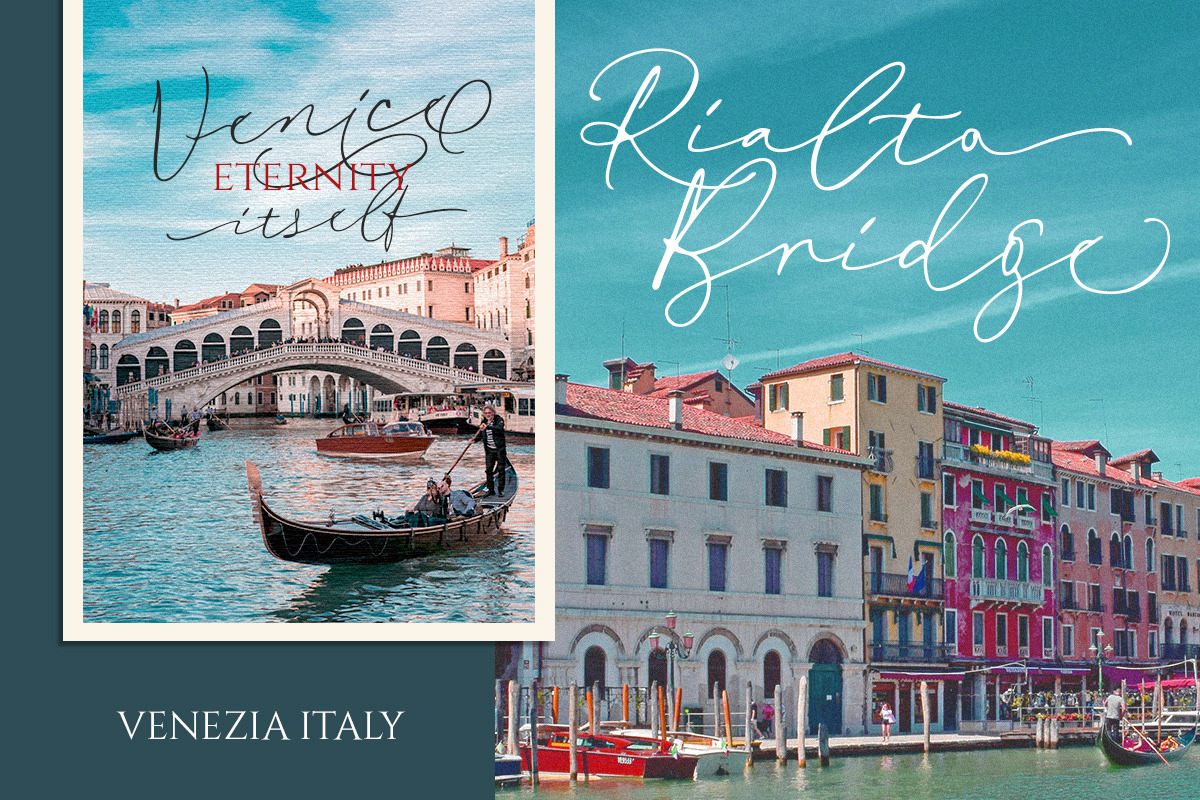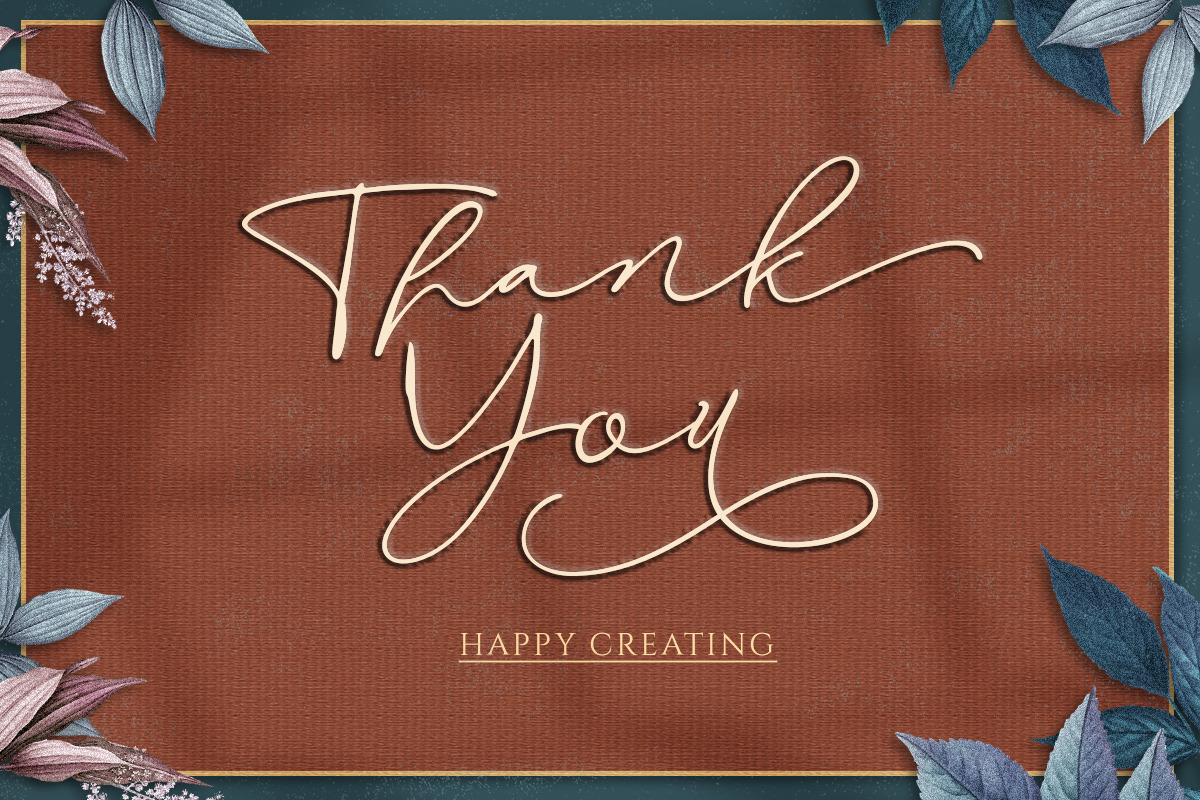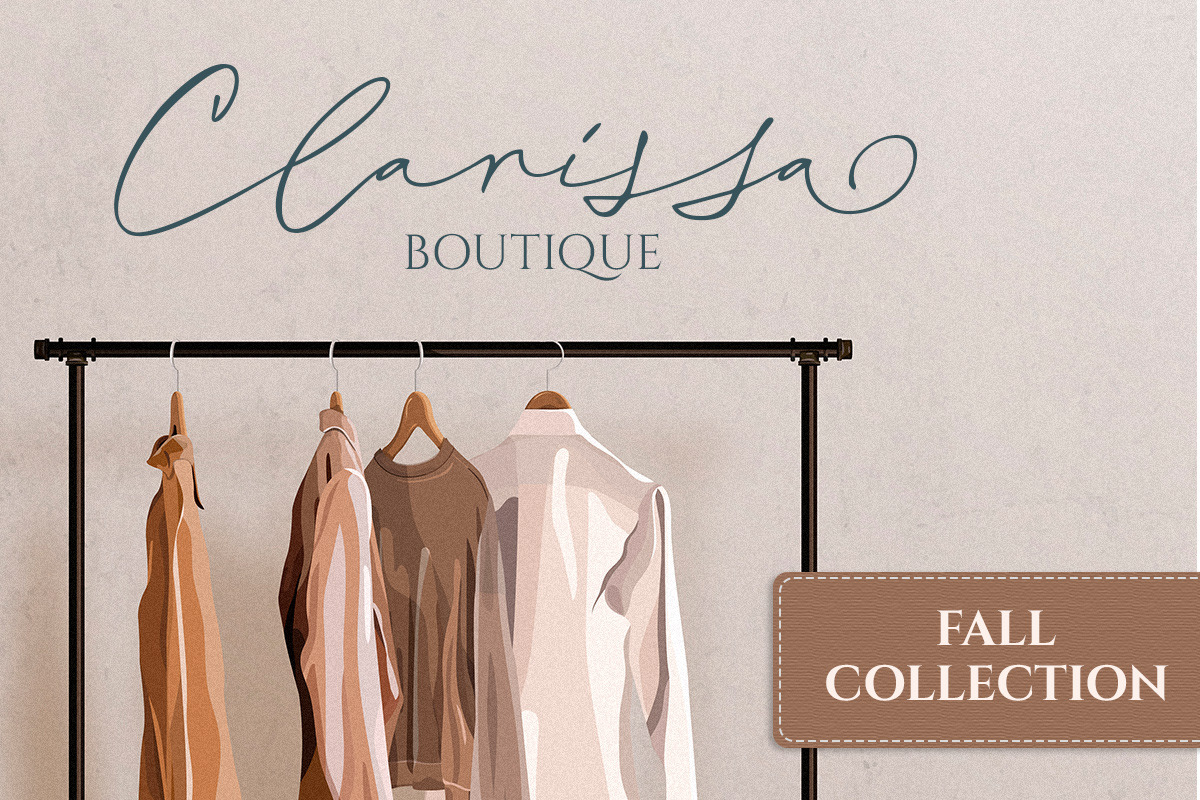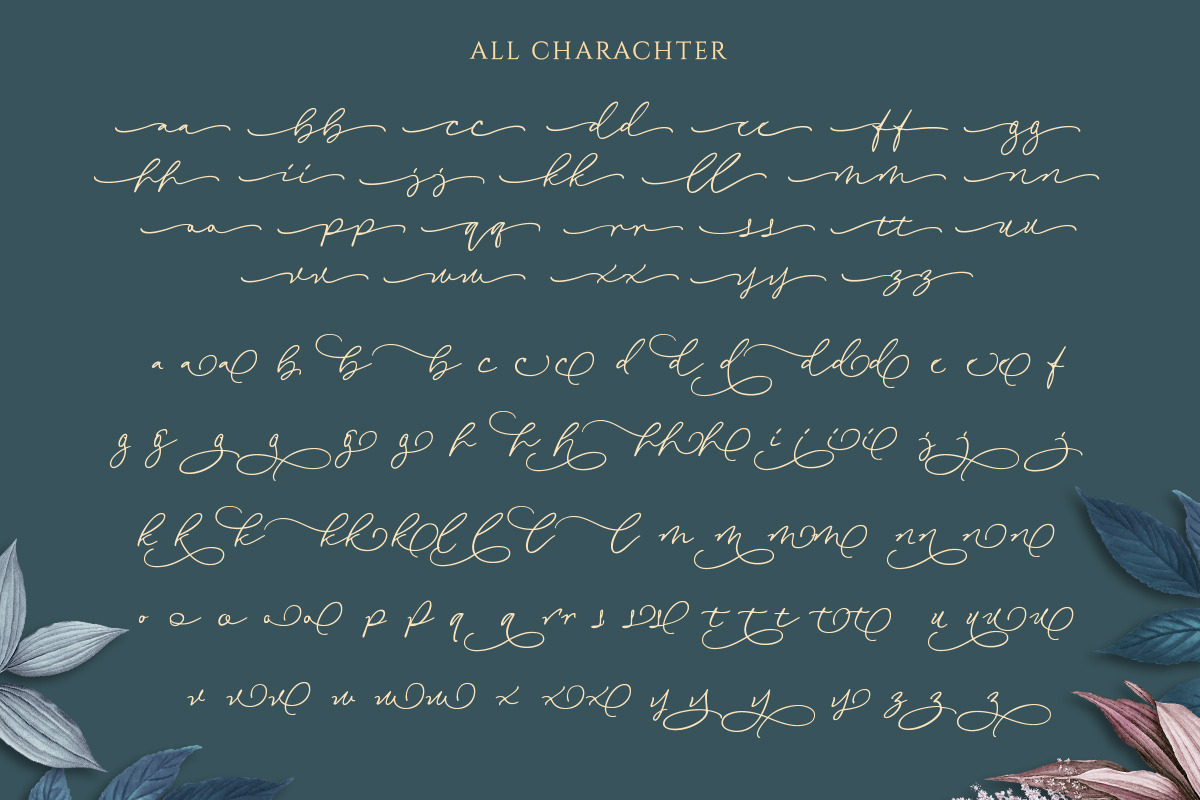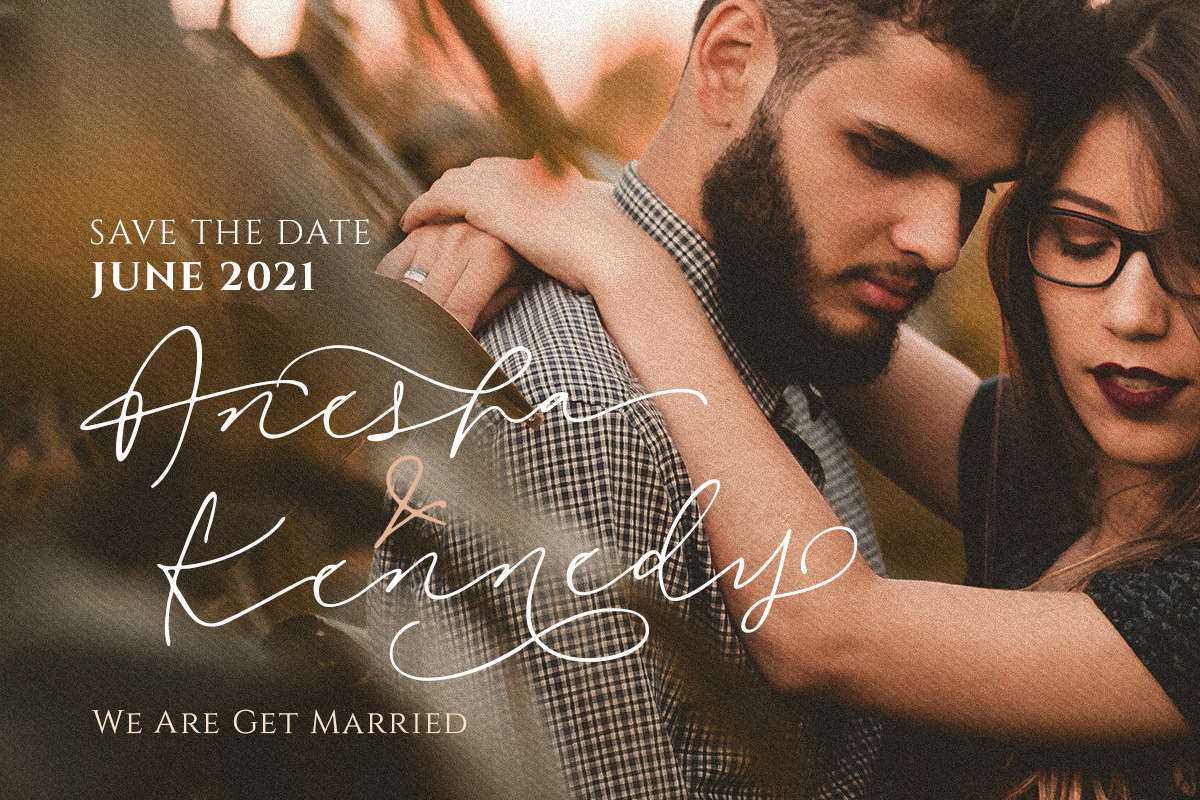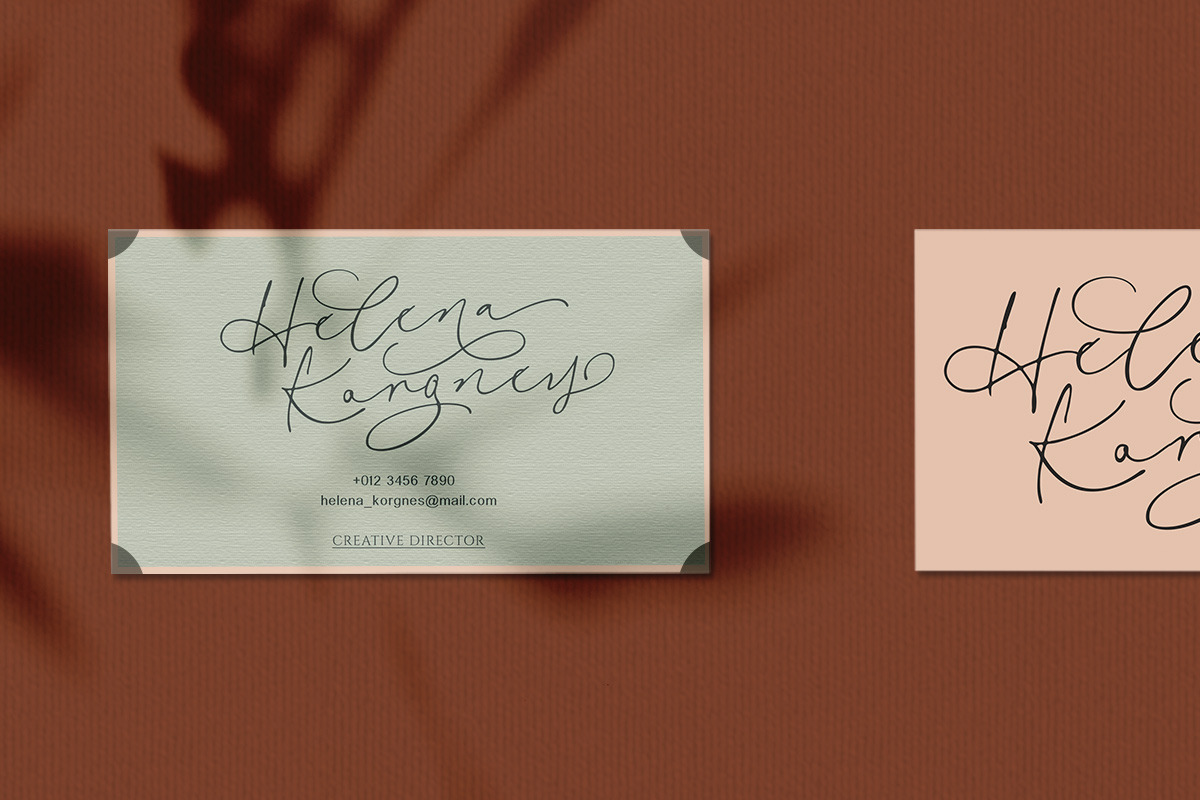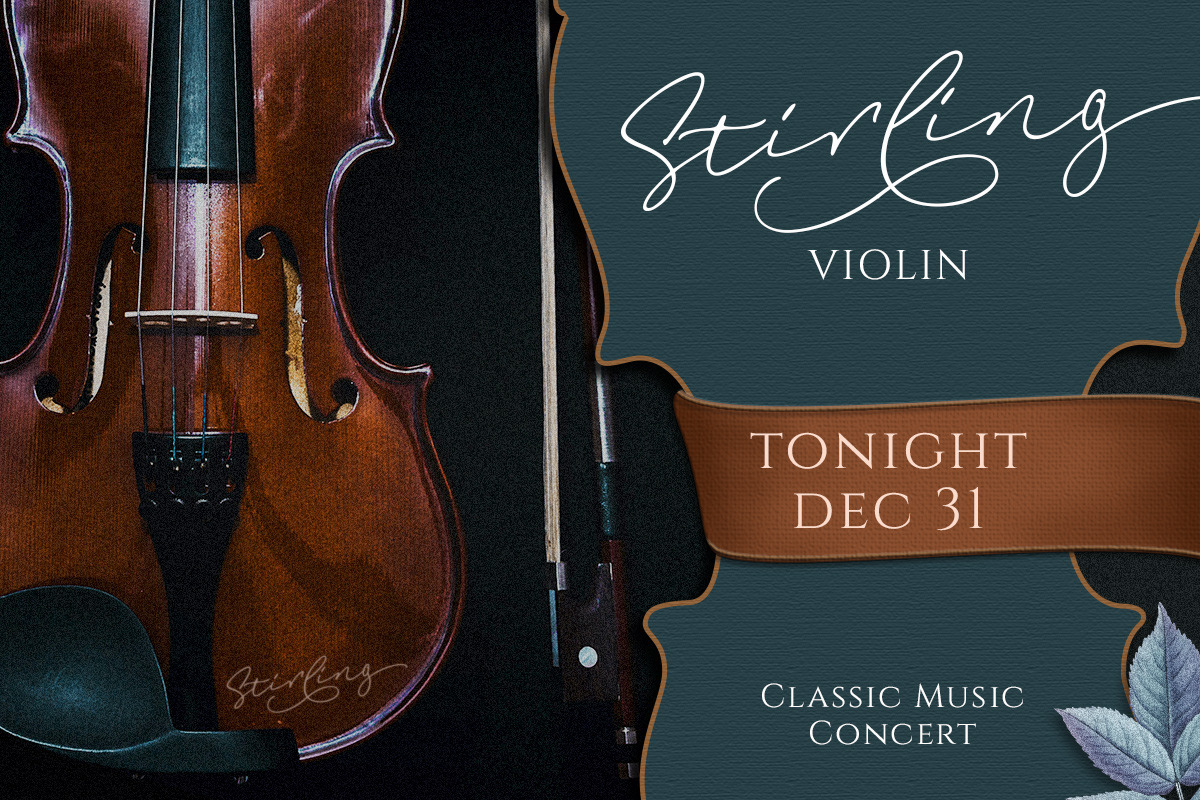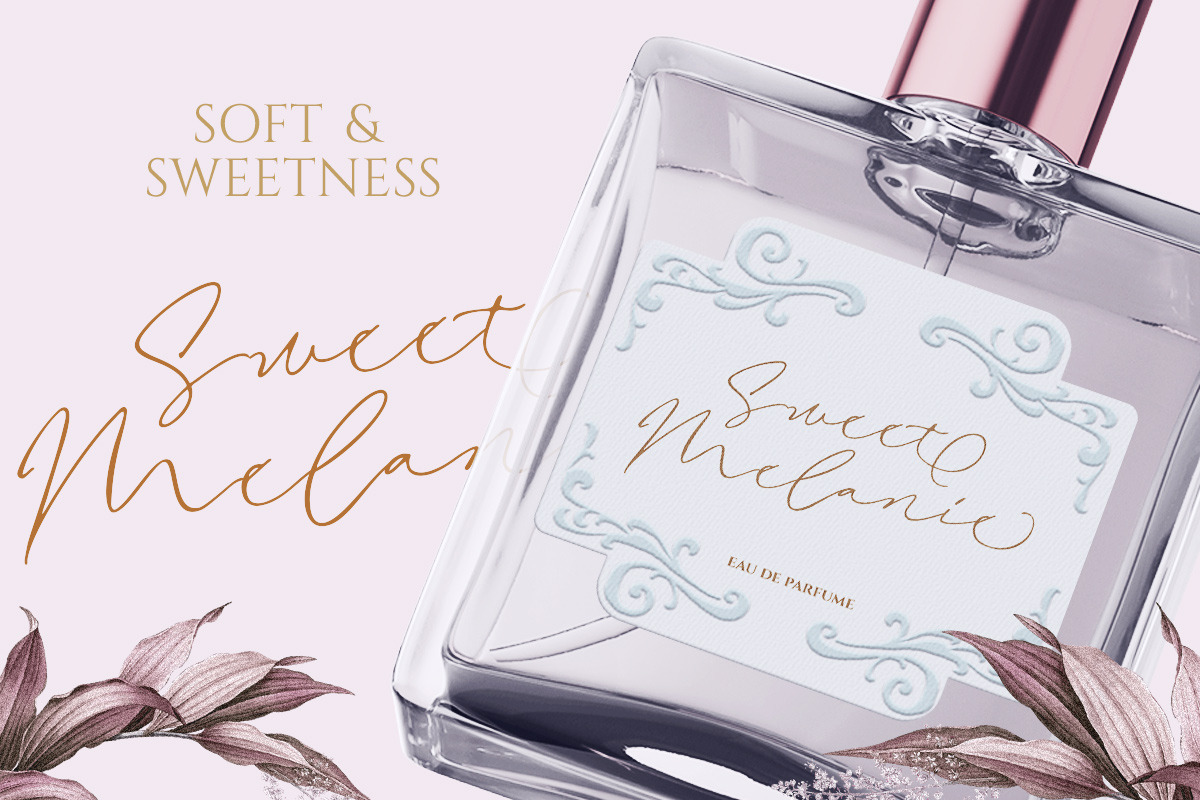
Revalina Signature Script
Introducing, Revalina Signature Script - a typeface inspired by natural hand written. This font has many stylistic alternates, ligatures, swashes so you can play around with them using opentype features and creates lettering with natural touch. This type of font perfectly made to be applied especially in logo, and the other various formal forms such as invitations, labels, logos, magazines, books, greeting / wedding cards, packaging, fashion, make up, stationery, novels, labels or any type of advertising purpose.
- alternates and ligatures
- swashes